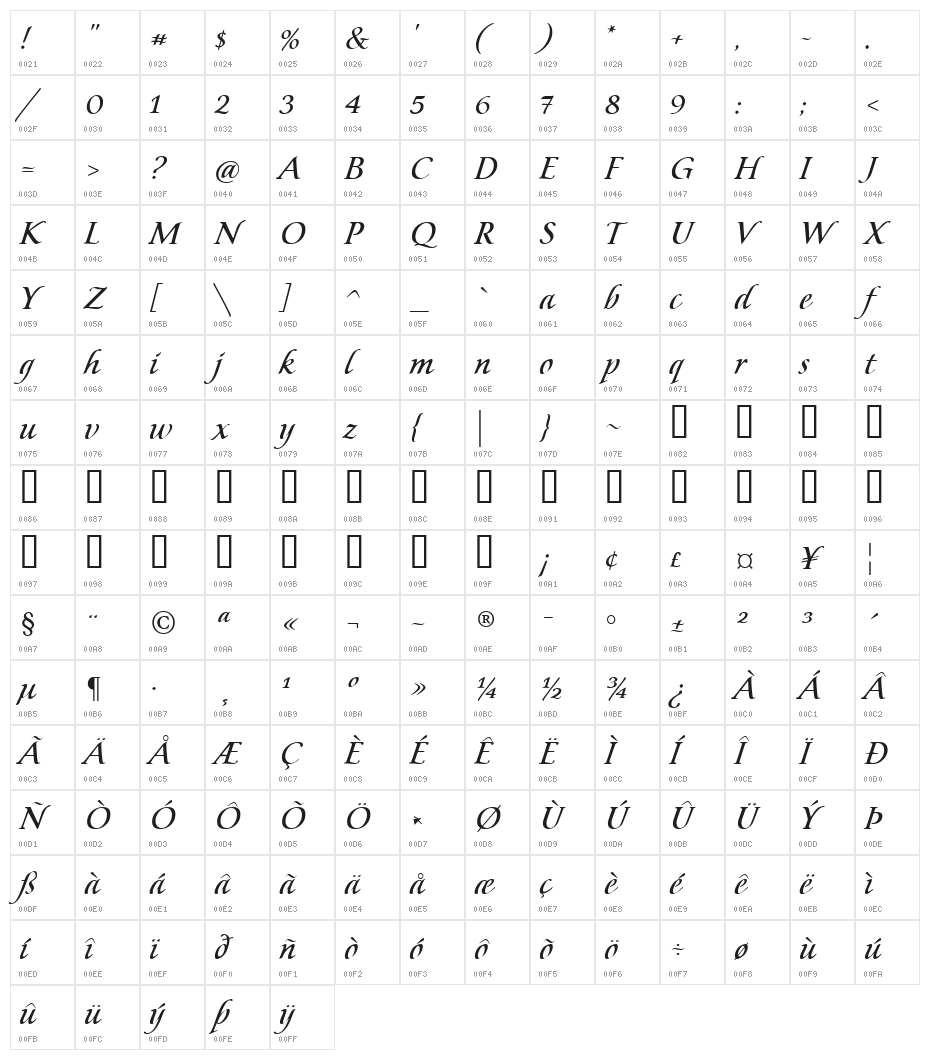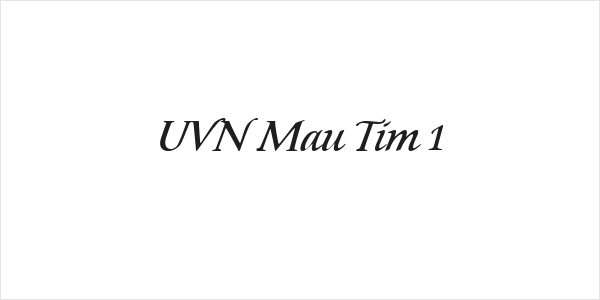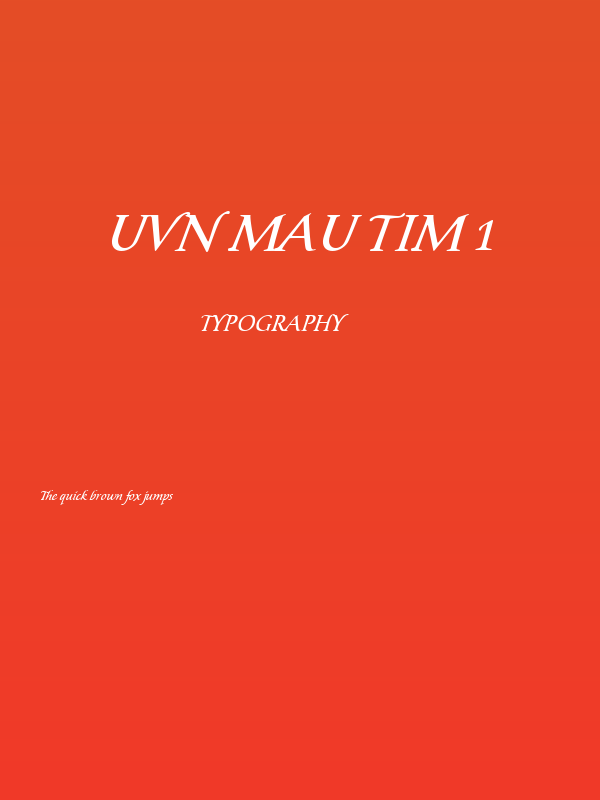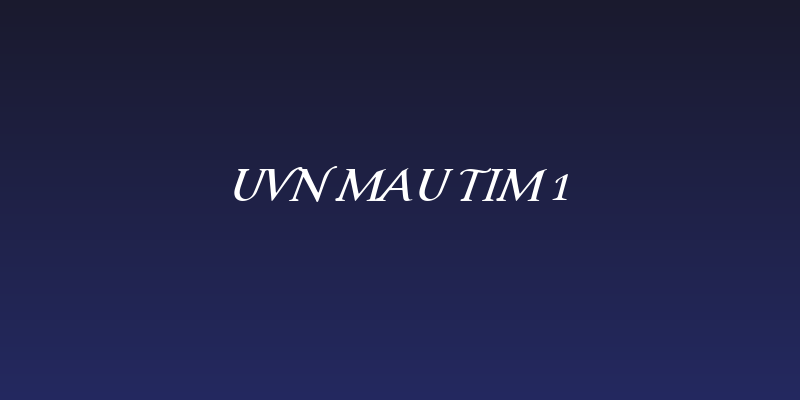
UVN Mau Tim 1 Font
UVN Mau Tim 1 Description
This elegant typeface features a classic and sophisticated design with a slight italic slant, giving it a dynamic and fluid appearance. The characters are well-formed with a moderate contrast between thick and thin strokes, enhancing readability while maintaining an artistic flair. The uppercase letters are stately and commanding, while the lowercase letters are gracefully curved, adding a touch of refinement. The numerals are clear and balanced, complementing the overall style. Special characters are thoughtfully designed, ensuring consistency across the font. This typeface exudes a timeless charm, making it suitable for a variety of applications.
| Proposed Projects | Ideal for wedding invitations, formal event programs, luxury branding, and editorial design. |